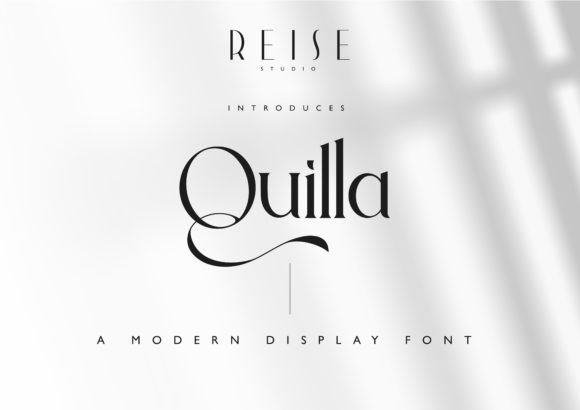
Immerse yourself in the realm of fashion with Quilla Font, a captivating display typeface that exudes elegance and poise. Designed to leave an unforgettable impression, Quilla is not just a font; it's an artistic masterpiece that transforms your creative visions into stunning realities.
Whether you're crafting logos that command attention or invitation designs that ignite imaginations, Quilla is your perfect companion. Its refined serifs and graceful curves lend a timeless charm to your creations, elevating them beyond the ordinary. But Quilla is not merely aesthetically pleasing; it's also remarkably versatile, adapting effortlessly to a myriad of design projects.
With Quilla at your disposal, you can weave enchanting stories through your typography, captivating your audience with every letter. Its PUA encoding ensures seamless access to a treasure trove of glyphs and ligatures, empowering you to unleash your creativity without limits.
Quilla is more than just a font; it's an invitation to embark on a journey of artistic exploration. Its elegant strokes and sophisticated charm will transform your designs into captivating works of art, leaving an everlasting mark on the hearts and minds of your audience. Experience the magic of Quilla Font today and elevate your designs to new heights of beauty and sophistication.